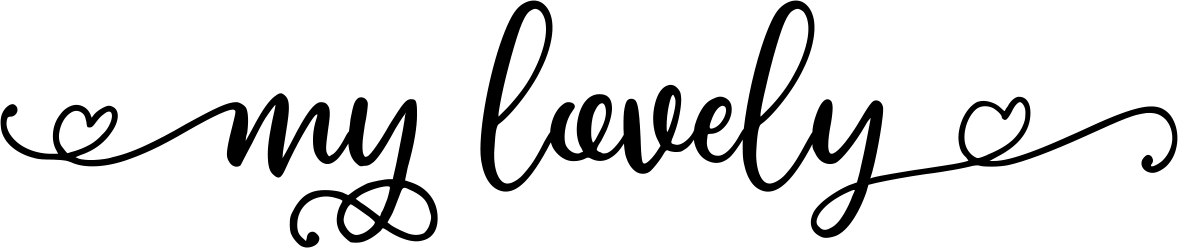
My Lovely Font
My Lovely font brings love, affection, and tenderness to your designs. At first glance, you can imagine this calligraphic and feminine font in many beautiful and girly designs, such as wedding cards, birthday parties, and cosmetic brands, by having lovely hearts.
Uppercase letters have too many flourish designs, and lowercase letters will put simpler combinations of the two in your design. By the way, you can create amazing girly designs by combining letters and numbers.